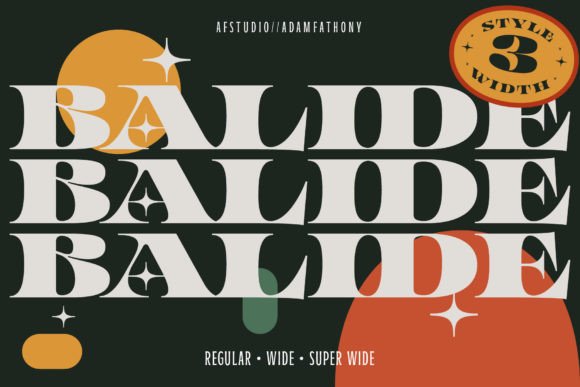
Embark on a typographic journey with Balide Font, the captivating display font that exudes retro charm and sophistication. Crafted with meticulous precision and an eye for detail by the talented Adam Fathony, this font is a true masterpiece that will elevate your designs to new heights.
Dive into the world of Balide and discover a font that is both visually striking and highly versatile. Its unique blend of classic serif elements and modern aesthetics makes it the perfect choice for a wide range of projects, from eye-catching posters and flyers to elegant branding and packaging. Unleash your creativity and let Balide's timeless appeal work its magic on your designs.
More than just a font, Balide is an artistic expression that captures the essence of retro nostalgia and contemporary style. Each letterform is meticulously crafted to convey a sense of depth and dimension, adding a touch of intrigue and elegance to your creations. Whether you're working on a tri-fold poster, a captivating social media campaign, or a striking logo, Balide will leave an unforgettable impression.
With Balide by your side, you'll have the power to transform ordinary designs into extraordinary works of art. Its versatility knows no bounds, allowing you to experiment with different sizes, colors, and layouts to achieve the perfect visual impact. Let Balide be your creative companion as you push the boundaries of design and captivate your audience with every stroke of the pen.
Don't settle for ordinary fonts that blend into the background. Embrace the boldness and individuality of Balide and watch your designs come alive with personality and flair. It's the perfect font for those who dare to be different, who strive for excellence, and who want to leave a lasting impression on their audience.